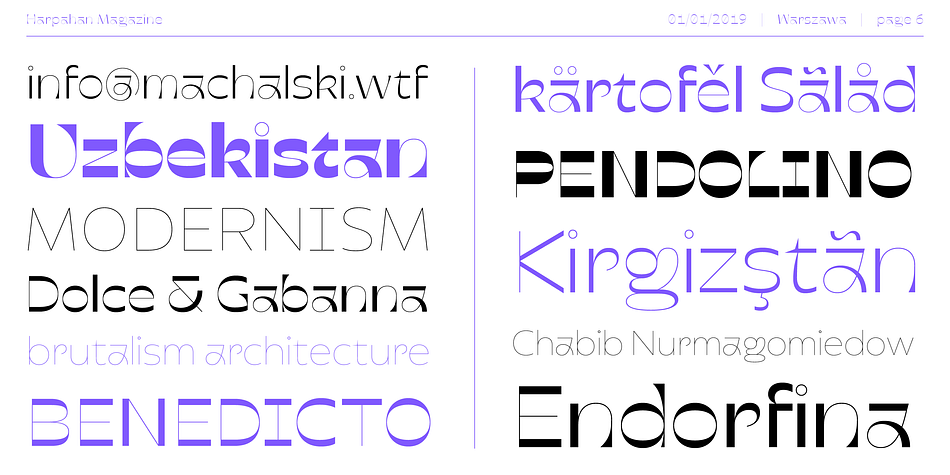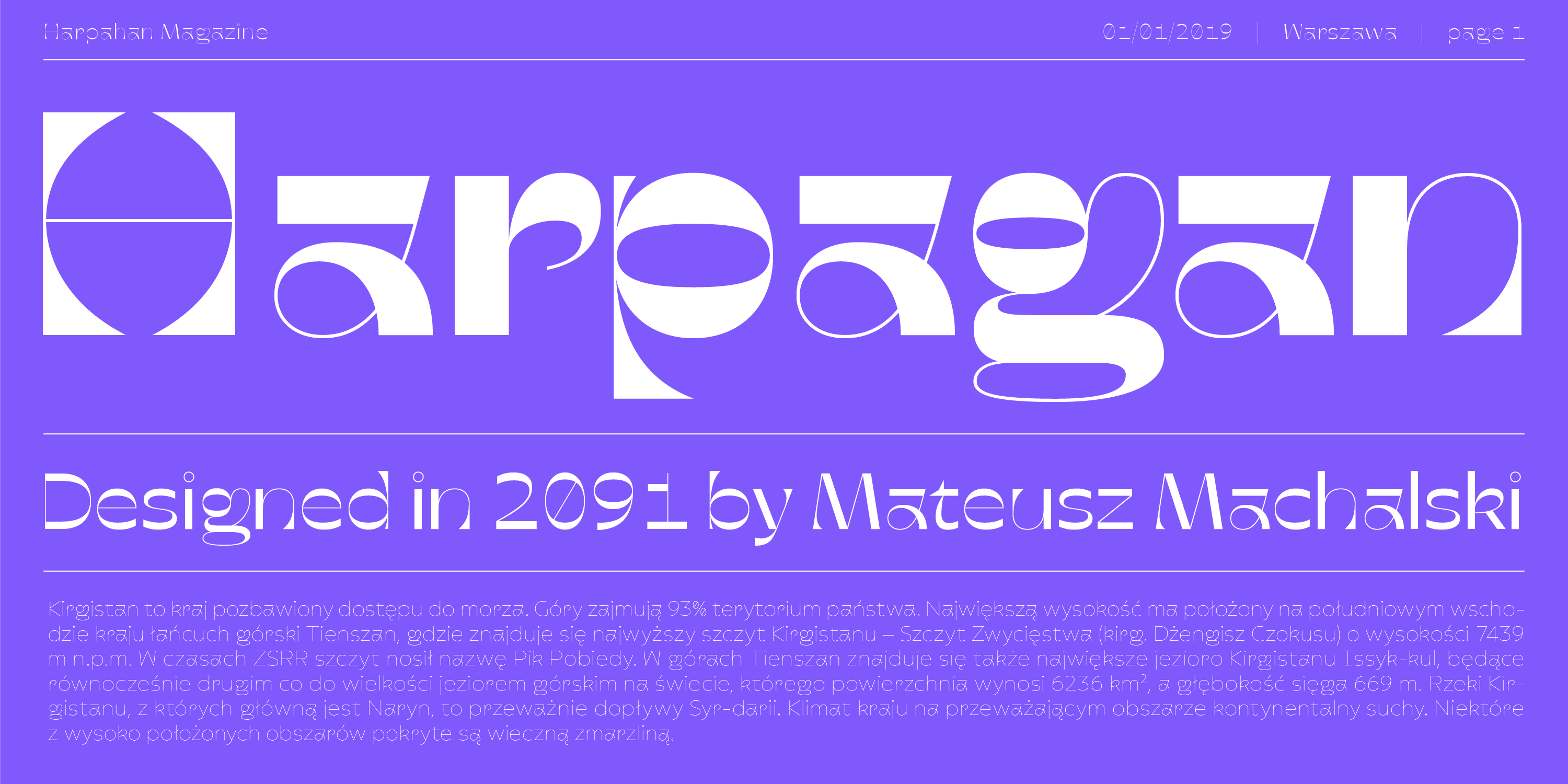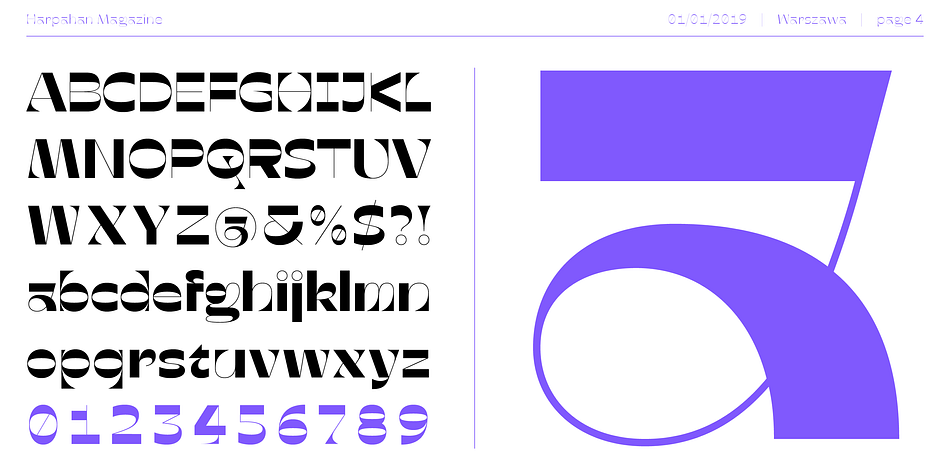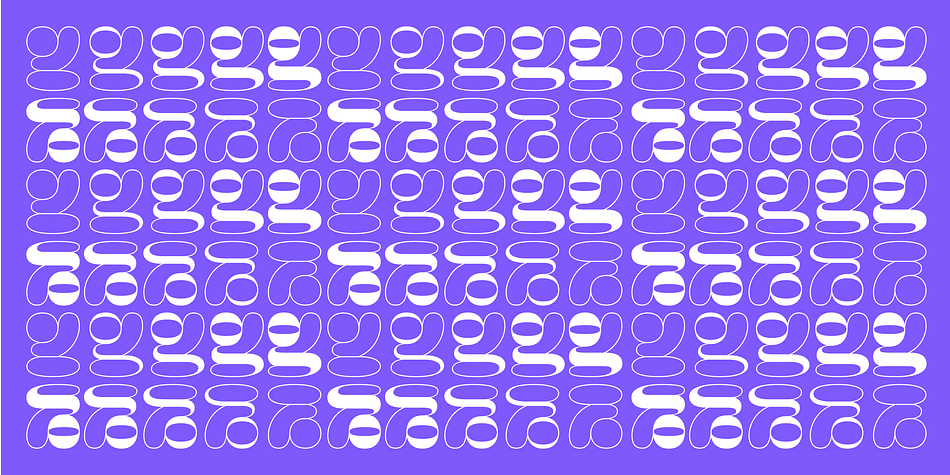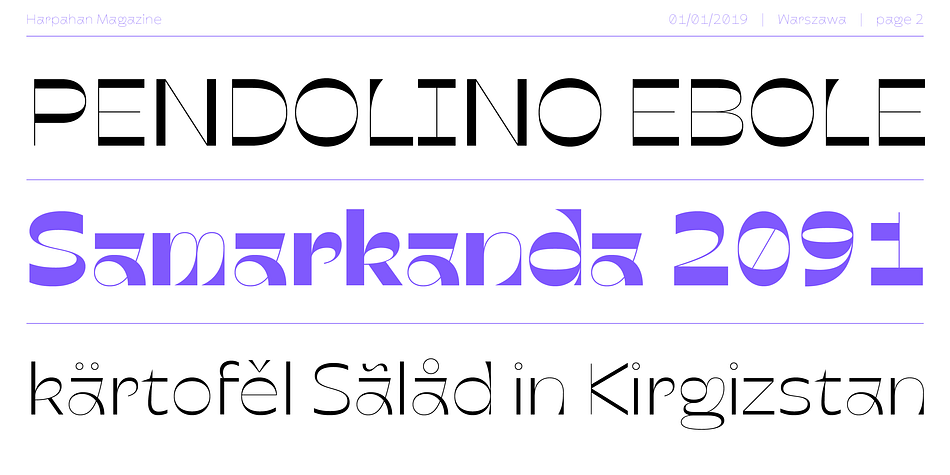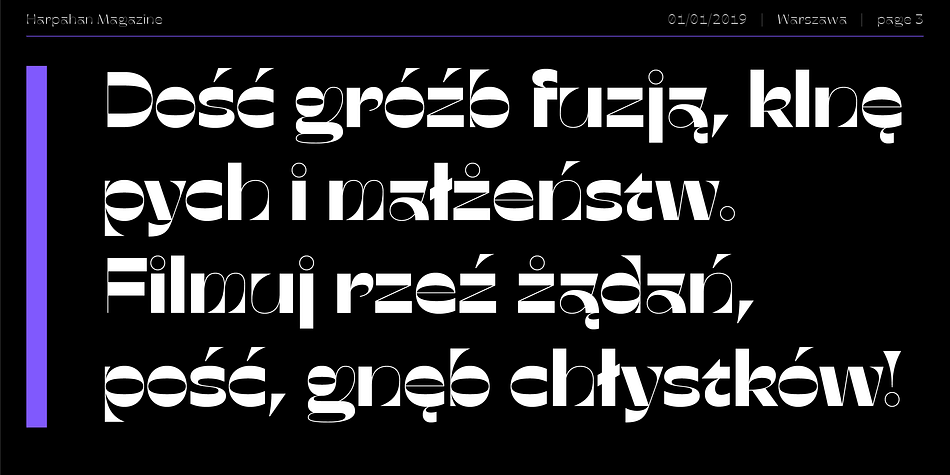
Harpagan
Harpagan is a display font family. This typeface has five styles and was published by BORUTTA.
Harpagan is experimental type family characterised by scalable construction from mono linear grotesk to display bold. I’ve designed this typeface after my trip to Kyrgyzstan, Ubzbekistan and Kazachstan, where i’ve been impressed by impact of arabic script in Asian style Cyrillics. Harpagan type Family consist of 5 futuristic styles.
03.01.2091, Bishkek, Kyrgyzstan
Awards:
TDC Ascenders 2018
Foundry MACHALSKI